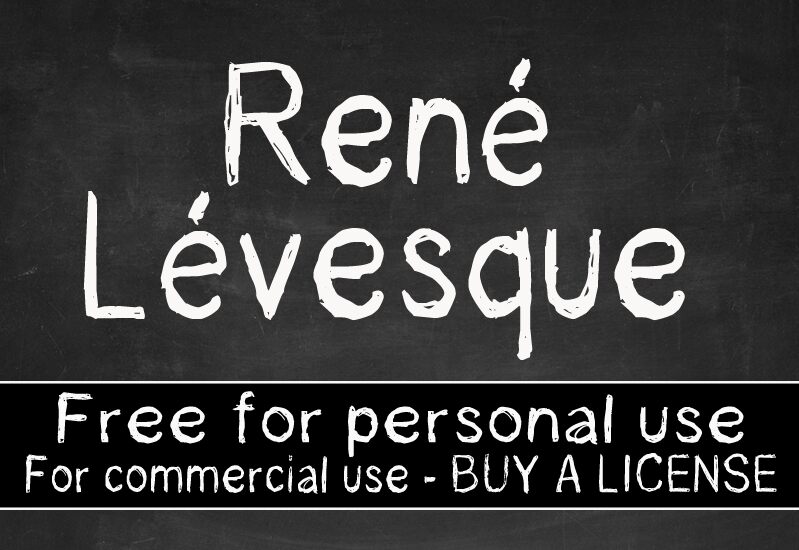
Rene Levesque by Cloutierfontes is a free trash-style handwritten font with tall, loosely drawn letters. Its uneven strokes shift from thin scratches to dense marks, and irregular widths keep the line restless. Several forms look hastily corrected or retraced.
Punk music is the clearest match for its raw construction. It suits gig posters, album art, and streetwear graphics with a photocopied edge. Posters are its strongest use, since the erratic silhouettes resemble quick marker lettering.
Rene Levesque